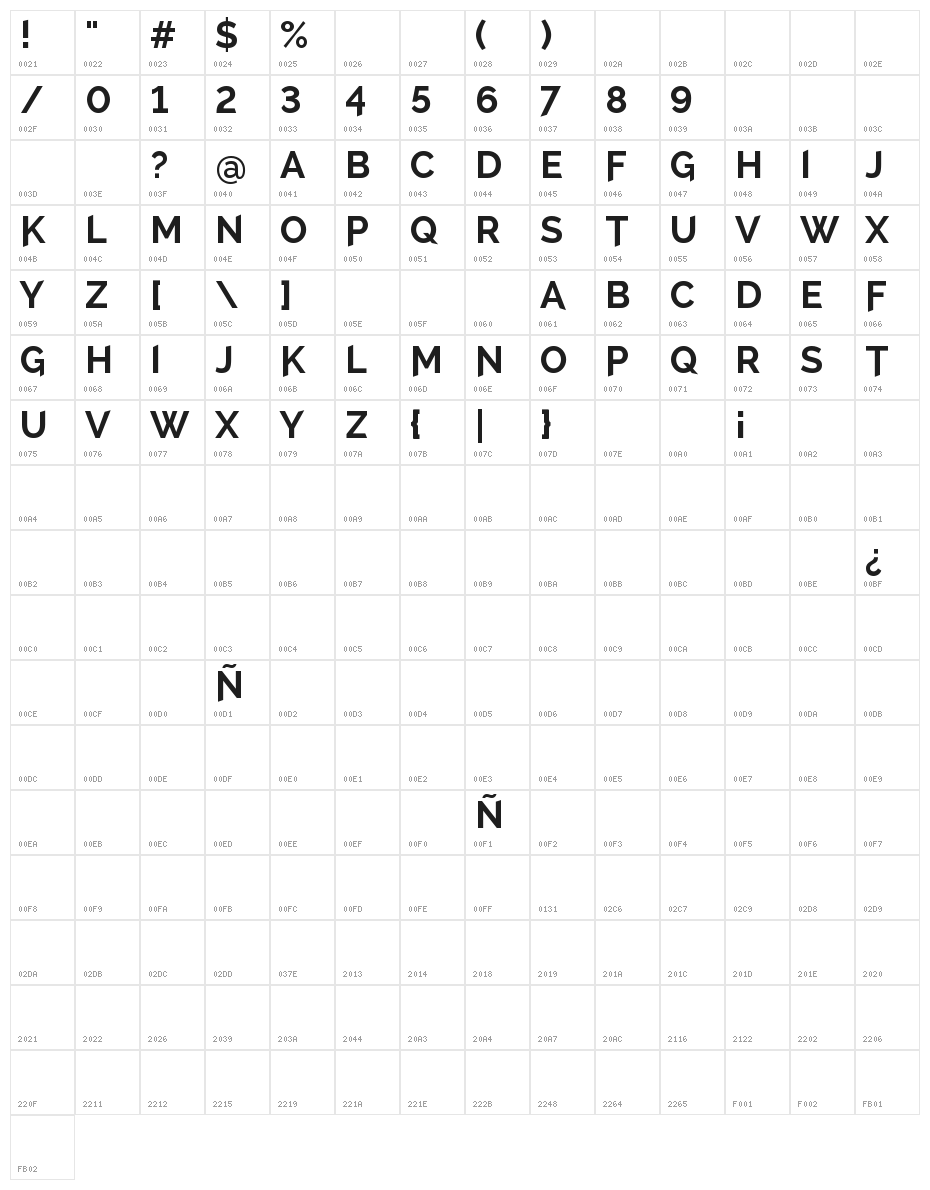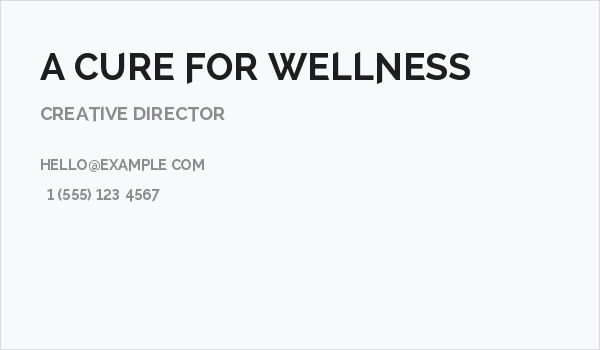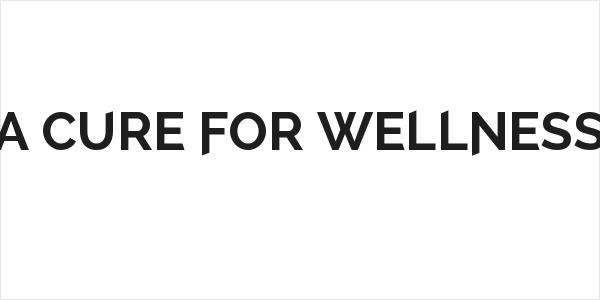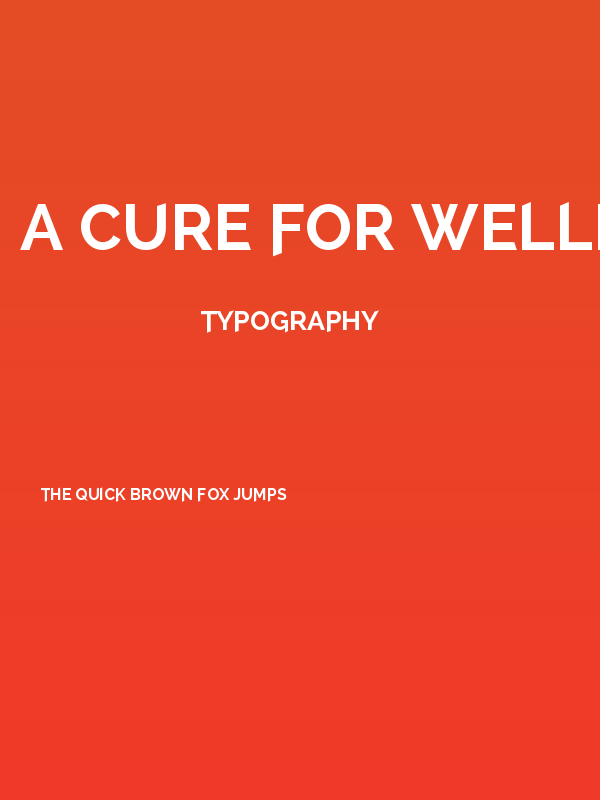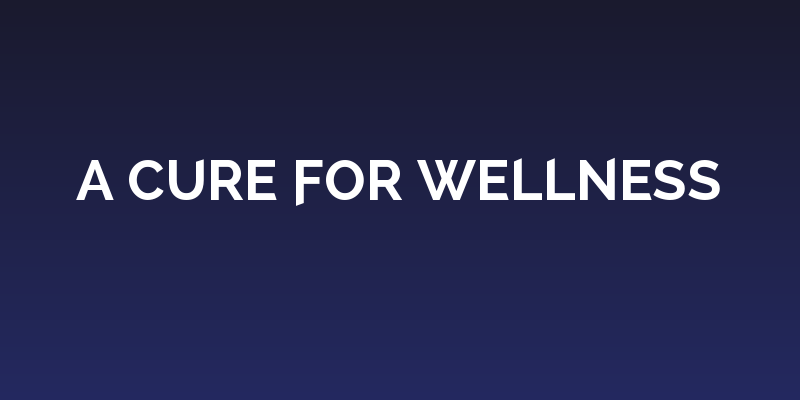
This font is a bold and modern sans-serif typeface characterized by its clean lines and geometric shapes. The uppercase letters are uniform in height, with consistent stroke widths that convey a sense of stability and strength. The lowercase letters maintain the same geometric precision, offering a harmonious balance between the characters. The numerals are clear and easy to read, making them suitable for various applications. Special characters are well-defined, adding to the font's versatility. The overall appearance is sleek and professional, making it ideal for contemporary design projects.
Use CaseHeadlines, Logos, Branding
Proposed ProjectsIdeal for branding, advertising, web design, and editorial layouts.